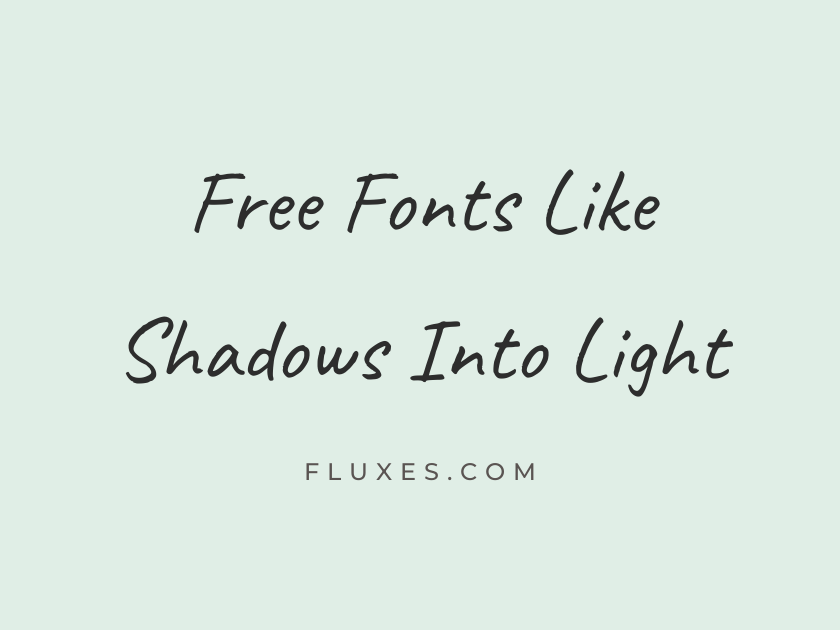
16 Best Free Fonts Similar to Shadows Into Light
The appeal of Shadows Into Light lies in its loose, unhurried scrawl, the kind of handwriting you’d find in a well-loved notebook rather than a printed page. It’s become a go-to for personal blogs, journal-style headers, diary entries, and invitations that want to feel warm and human instead of polished. But that same casualness means it can turn uneven or hard to read at small sizes, and using it everywhere on a site starts to feel like a cliché. If you’re hunting for free handwritten fonts on Google Fonts that capture a similar informal, pen-on-paper energy without repeating the exact same look, there’s a good cluster of genuine alternatives worth knowing.
Just a quick note to remember this
Caveat is probably the closest cousin to Shadows Into Light in terms of popularity and purpose. It has a bit more polish and consistency in its letterforms, which makes it slightly easier to read at small sizes while keeping that relaxed, handwritten spirit. Bump it up to a bold weight for headlines and it holds its personality without losing legibility.
Scribbled thoughts on a lazy afternoon
Kalam brings a rounder, slightly heavier hand than Shadows Into Light, closer to a felt-tip pen than a ballpoint. It reads well in longer passages, which makes it a solid pick for handwritten-style blockquotes or diary excerpts rather than just single-line headers.
Dear diary, today was surprisingly nice
This one looks like the neat handwriting of someone who actually took a penmanship class. Patrick Hand trades the loose scrawl of Shadows Into Light for something tidier and more upright, so it holds up better in body copy and at smaller point sizes.
Sticky notes and coffee-stained reminders
Bubbly, bouncy, and a little playful, Indie Flower leans younger and more whimsical than Shadows Into Light. It suits craft blogs, kids’ content, and sticky-note style callouts, though its rounded shapes can blur together in dense paragraphs, so it’s best kept to short bursts of text.
Sketch notes from the drafting table
There’s a technical-drawing quality to Architects Daughter, as if it were lettered by someone annotating a blueprint. It pairs nicely with sans-serif body text for a site that wants a handmade accent without drifting into overly precious territory.
Marker doodles in the margins
Gochi Hand has a childlike, felt-pen looseness that’s even more informal than Shadows Into Light. It works best as a display accent, a title scrawled across a photo or a badge, rather than as anything meant to be read at length.
Written with love, just for you
Homemade Apple slants further into cursive territory, with connected strokes that mimic a smooth, fast hand. It carries an intimate, personal-letter feeling that suits wedding invitations and heartfelt greeting cards, though its thin, flowing strokes get muddy at small sizes and need generous spacing to breathe.
Reenie Beanie
Quick scribble before I forget
Reenie Beanie
Fast, loose, and a little messy, Reenie Beanie reads like a note dashed off in a hurry. It’s got real charm as a header font over a photo or a doodle-style illustration, but it’s not the font to lean on for anything a reader needs to parse carefully.
Coming Soon
More stories on the way, promise
Coming Soon
Coming Soon has a friendly, informal roundness that feels like a casual marker note rather than pen and ink. Its slightly wider letter spacing makes it a touch more legible than Shadows Into Light at small sizes, useful for short captions or UI-style callouts with a handmade touch.
Shadows Into Light Two
A slightly bolder version of the original
Shadows Into Light Two
It only makes sense to mention the family’s own sibling. Shadows Into Light Two carries thicker strokes and a bit more weight than the original, giving it better presence in headlines while keeping the same easy, sketchy character.
Nanum Pen Script
Notes jotted in the corner of a page
Nanum Pen Script
Originally designed with Korean in mind, Nanum Pen Script also ships with a clean Latin set that has a light, energetic scrawl. It feels a touch more youthful and casual than Shadows Into Light, well suited to social graphics and short, punchy headlines.
Handlee
Handwritten labels for a handmade shop
Handlee
Handlee sits in a comfortable middle ground, casual enough to feel handmade but tidy enough to survive smaller sizes and busier layouts. It’s a dependable choice for product labels, recipe cards, or anywhere a friendly handwritten voice needs to stay legible.
Tall letters leaning into the wind
Condensed and slightly slanted, Just Another Hand has an energetic, hurried quality that makes it stand apart from the rounder shapes of Shadows Into Light. Its narrow footprint makes it handy for tight header spaces where a full-width script would crowd the layout.
Neucha
Warm handwritten greetings from afar
Neucha
Neucha has a soft, rounded warmth and slightly heavier strokes than Shadows Into Light, giving it a cozier, more grounded feel. It reads comfortably at body-copy sizes, making it one of the more versatile picks here for longer handwritten-style passages.
Keep font sizes generous. Scripts with looping strokes and inconsistent baselines lose clarity fast when set too small.
Watch your line spacing too. A little extra leading helps ascenders and descenders avoid crowding into neighboring lines.
Any of these free Google Fonts can stand in for Shadows Into Light depending on how casual, bold, or tidy you want the handwriting to feel. Try a few side by side in your own layout before committing, since the right amount of looseness is often a matter of taste as much as legibility.